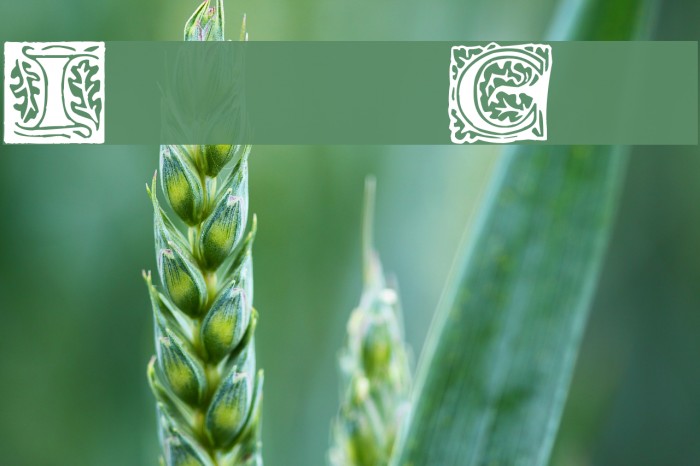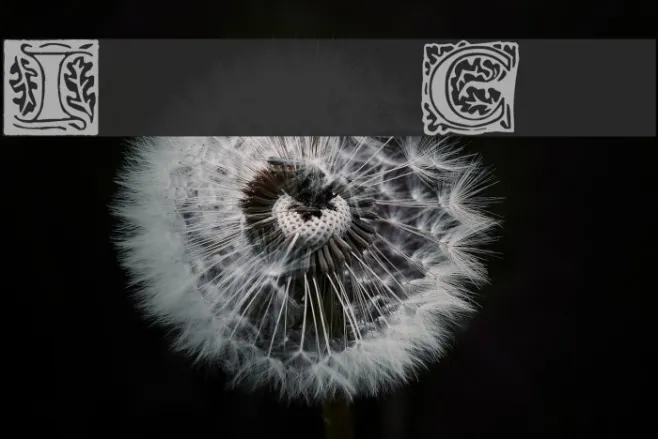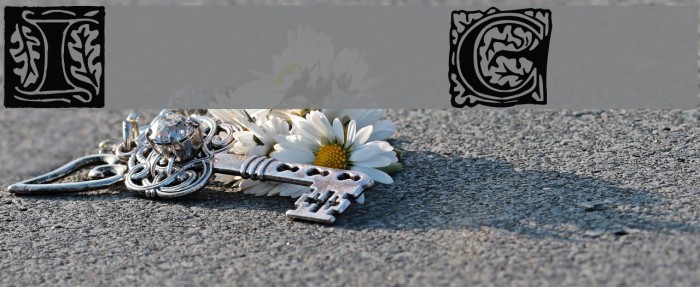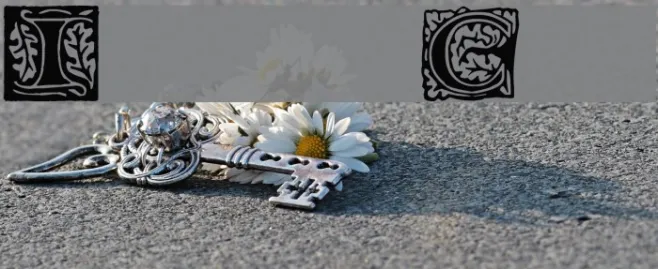
Initial Caps Font
This font features an ornate and decorative style, with each letter encapsulated in an intricate, artistic frame. The design is reminiscent of illuminated manuscripts, with elaborate patterns and flourishes that give each character a unique and regal appearance. The bold and complex detailing suggests a historical or vintage influence, making it suitable for projects that require a touch of elegance and sophistication. The font's intricate design may not be suitable for small text but excels in larger formats where the details can be appreciated.
An ornate, decorative font with intricate, artistic frames around each letter.
• Proposed Projects: Ideal for use in invitations, certificates, book covers, and other projects that require a luxurious and historical aesthetic.
• Category: Decorative/Display
• Overall Style: Vintage
• Use Case: Headlines, Logos